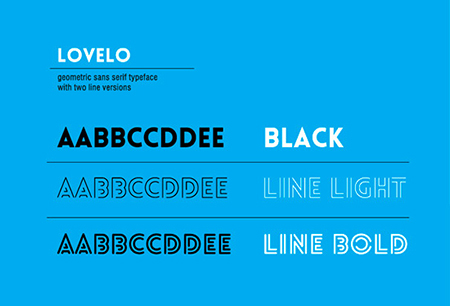
Today we unveil a remake of the original Lovelo Inline font that designed by Renzler Design, Vienna, Austria. Its really a creative font that can make your brochures and marketing collateral definitely attractive and creative and can be used in other graphic designs. The font is free and you can use it for personal and commercial purpose.